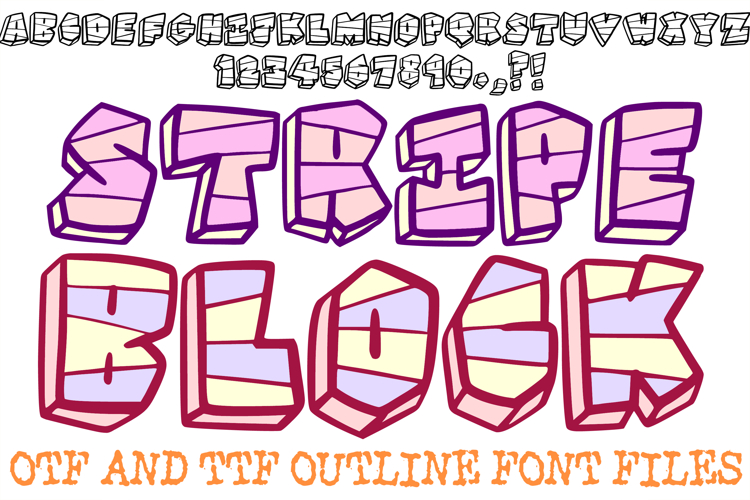
The Stripe Block Font is a bold, geometric display typeface designed for high-impact headers and creative branding. Featuring heavy, slab-like letterforms detailed with unique horizontal "stripe" etchings, this font offers a textured, industrial-yet-playful look. It is a premier tool for designers working on gaming graphics, modern streetwear branding, comic book titles, and eye-catching event posters.
Meticulously hand-drawn with a clean, thick outline, Stripe Block strikes a balance between architectural stability and digital glitch aesthetics. Whether you are crafting a standout logo for a tech startup or creating bold vinyl decals for custom merchandise, this font’s high-contrast style ensures your messaging is seen and felt.
Why Your Designs Will Stand Out
Distinct Striped Texture: The internal horizontal lines provide a built-in "etched" or "scanned" effect, adding depth without the need for extra filters.
Heavyweight Impact: The thick, blocky structure of the characters makes it ideal for titles that need to command attention.
Modern Geometric Aesthetic: The clean, straight edges give the font a structured, professional feel suitable for both print and digital media.
Optimized for Versatile Use: Perfect for everything from laser-cut signage and embroidery to social media overlays and video game UI.